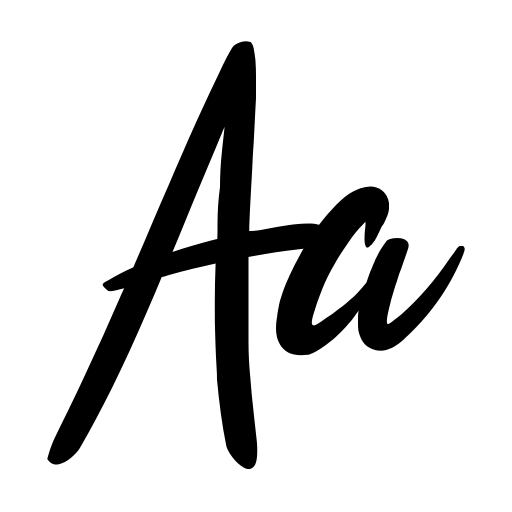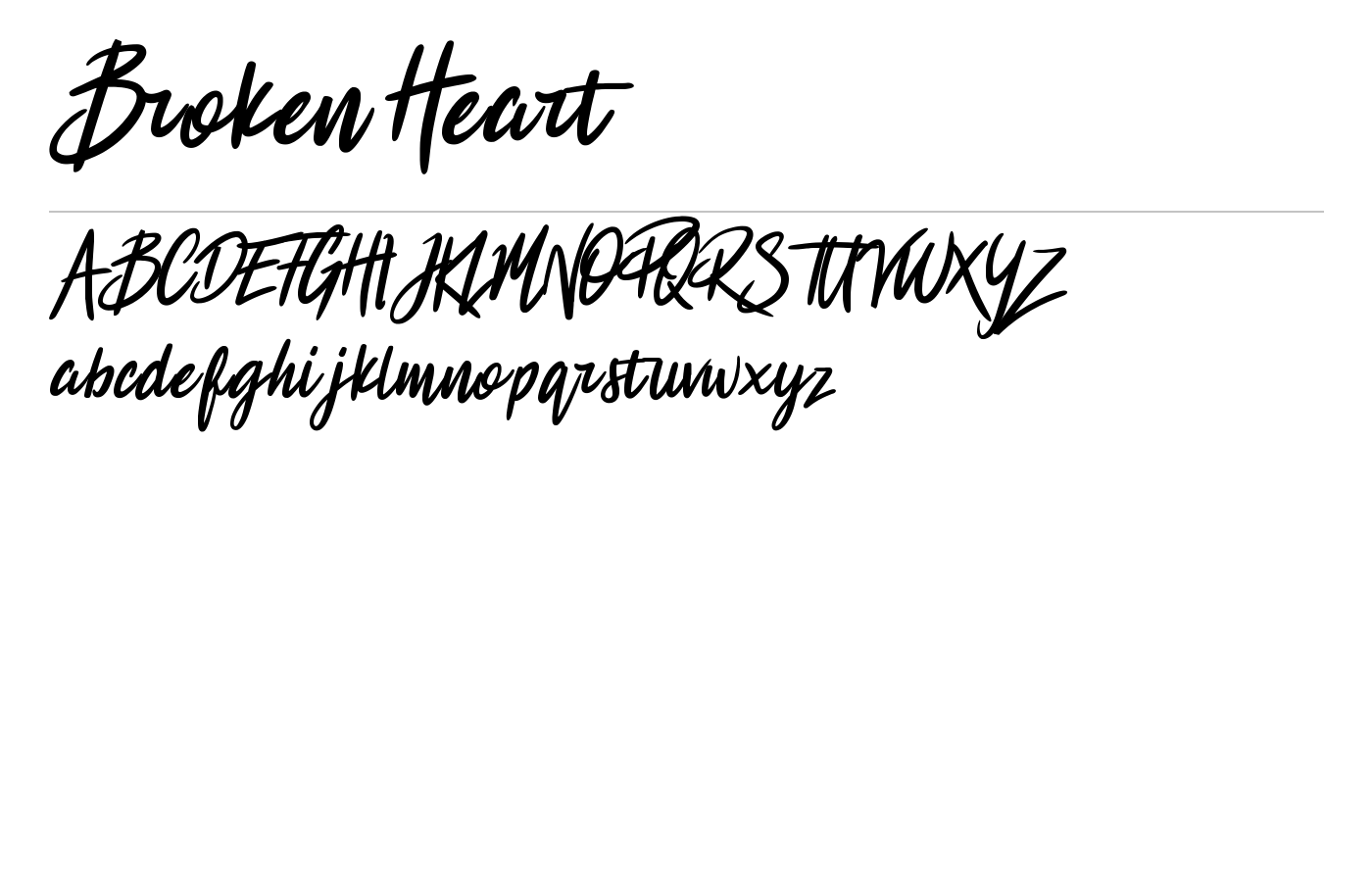
Broken Heart is a dynamic handwritten script font that captures a casual, energetic vibe with its bold, slightly condensed strokes and natural flow. Its high x-height, fluid letterforms, and unique character shapes make it ideal for creative projects, branding, and expressive headlines where personality and an informal, heartfelt feel are desired. This font works beautifully in logos, posters, and social media graphics, adding a personal touch that stands out with charm and authenticity.
Broken Heart Font
About Broken Heart Font
| Designer | Ghazi Humam Fauzan |